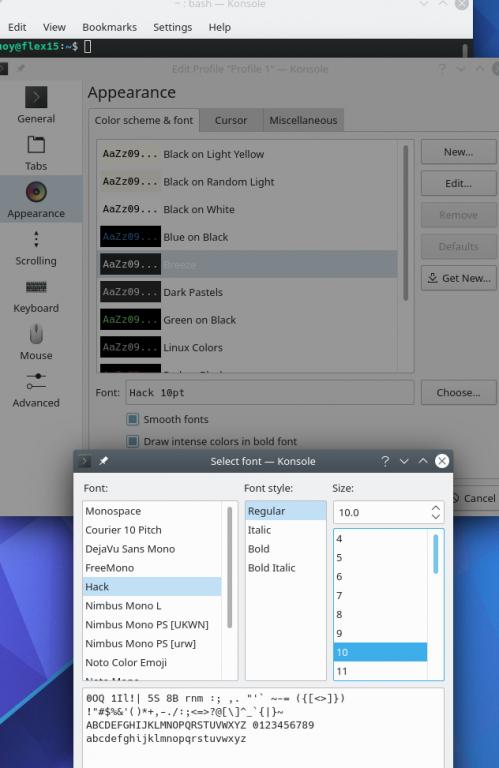
I recently installed Kubuntu 20.10 on a machine and the default monospace font in Konsole and other locations is "Monospace". When I go to an older installation of Kubuntu (which has now been upgraded to 20.10) and choose "Monospace" as the font, it does not look anything like the one I see in my new machine. I think "Monospace" is just a symlink to some other font in both the cases. It looks like the older machine's "Monospace" points to Liberation Mono (it's just my guess). How can I find out which monospace font the latest version of KDE's "Monospace" is pointing to?
What is the Monospace font in Kubuntu Groovy
In my Kubuntu 20.04.2 installation "Monospace" fonts are brought in by various packages, mainly Python ones.
In the KMenu click on Settings -> Font Management and then put "Monospace" in the search bar. On my system none are shown because they are not system fonts. If you search for "mono" instead you'll see a list of fonts that have a mono style included.
Thank you everyone for the helpful answers. I know how to install and change fonts. What I was not able to find out was which monospace font it is that "Monospace" is matched to, by default. Thank to you @kubicle now I know that in my older system, "Monospace" points to "Cousine" whereas the in the newer machines it points to "Noto Sans Mono" (not "Noto Mono"; don't know why there are two of them). For example, my old system shows this:
Now that I know what "Monospace" is matched to, is there a way I can change it to something else?Code:$ fc-match Monospace Cousine-Regular.ttf: "Cousine" "Regular"
You'd need to change your fontconfig configuration.Originally posted by kayvee View PostNow that I know what "Monospace" is matched to, is there a way I can change it to something else?
This will change the "Monospace" font to Hack (which obviously needs to be installed, or the setting will fall back to the system wide default).Code:<?xml version='1.0'?> <!DOCTYPE fontconfig SYSTEM 'fonts.dtd'> <fontconfig> <!-- Set preferred monospace font. --> <alias> <family>monospace</family> <prefer><family>Hack</family></prefer> </alias> </fontconfig>
Code:[FONT=monospace][COLOR=#18B218]fc-match[/COLOR] Monospace Hack-Regular.ttf: "Hack" "Regular" [/FONT]
The "Sans" is shorthand for "Sans Serif." Sans is a word of French origin that has been adopted by English speakers without translation. It means "without." A "serif" is a line finishing off the main strokes of a character. This character S has serifs - the two ending lines at the top and bottom of the S, note this "S" does not have serifs. Therefore, the reason you have both "Noto Sans Mono" and "Noto Mono" is the first one has no serifs and the second one does. The font naming is shorted for the sake of brevity. "No more Tofu, Sans Serif, Monospaced" is the actual name of the font. As you can see, rather long. I believe, (I could be making this up) traditionally printed text used serifs because it was considered more elegant looking. However, the invention of computers and the very poor resolution of early monitors necessitated a cleaner, more simple font because serifs made the letters harder to read. So "sans serif" fonts became desirable.Originally posted by kayvee View Post..."Noto Sans Mono" (not "Noto Mono"; don't know why there are two of them)...Last edited by oshunluvr; Feb 14, 2021, 05:59 PM.
Of course it does, but the OP probably has a reason why he wants to change the "Monospace" font, since he specifically said he knows "how to install and change fonts". He could be using software that does not respect KDE font settings, or have a multitude of paragraph styles configured to use "Monospace" in publishing software, for example.Originally posted by claydoh View PostThis does not work? Or am I missing something?
Thank you again @kubicle. Indeed I have inherited some internal program that does not allow me to change the fonts and the default in it is set to use whatever the system calls "Monospace".Originally posted by kubicle View PostOf course it does, but the OP probably has a reason why he wants to change the "Monospace" font, since he specifically said he knows "how to install and change fonts". He could be using software that does not respect KDE font settings, or have a multitude of paragraph styles configured to use "Monospace" in publishing software, for example.